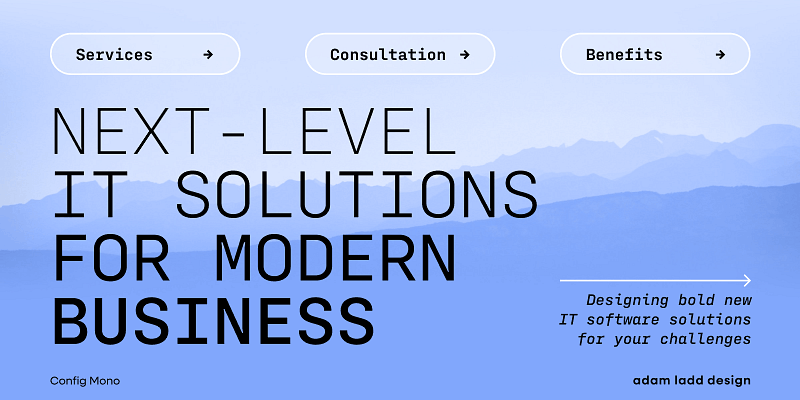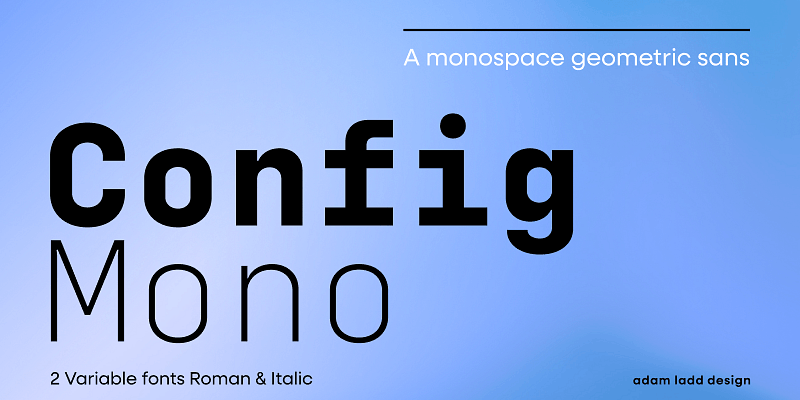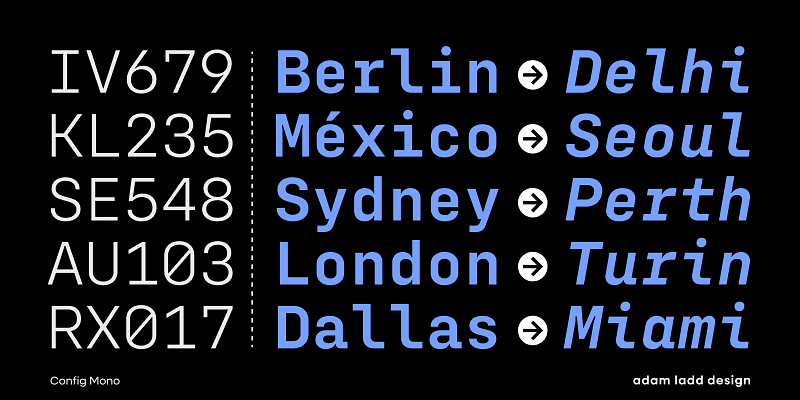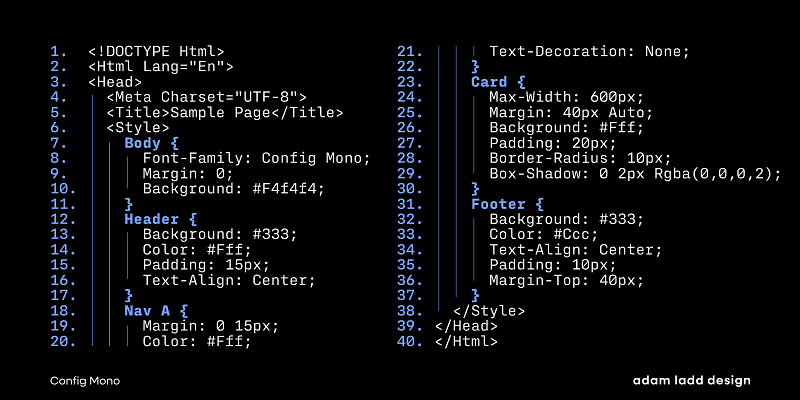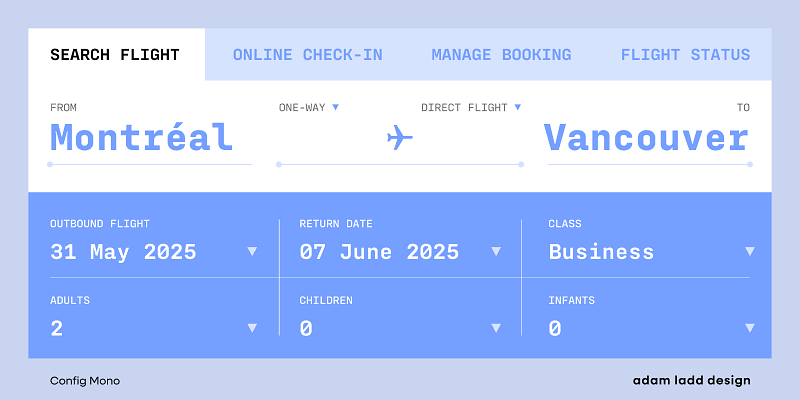
“Config Mono is a monospace sans serif, adapting the modern technical spirit of the Config font family into a fixed-width format. Modified for clarity and utility, it introduces subtle refinements in the roman and italic, enhancing readability across digital and print environments. Stylistic alternates give added flexibility, while the design remains clean and versatile—well-suited for smaller sizes in UI, coding, game consoles, and captions, and for larger sizes in magazines, textbooks, and packaging.
With an emphasis on typefaces designed to be useful and unique, Adam Ladd crafts fonts with a diverse appeal that ranges across modern and vintage aesthetics in sans serif, serif, and script styles. His experience as art director at two of the most revered design publications — HOW and PRINT magazines — informs his work as a type designer. Individuals and large companies in many industries have licensed his fonts, including Disney, Whole Foods, Blizzard Entertainment, and Penguin Random House.